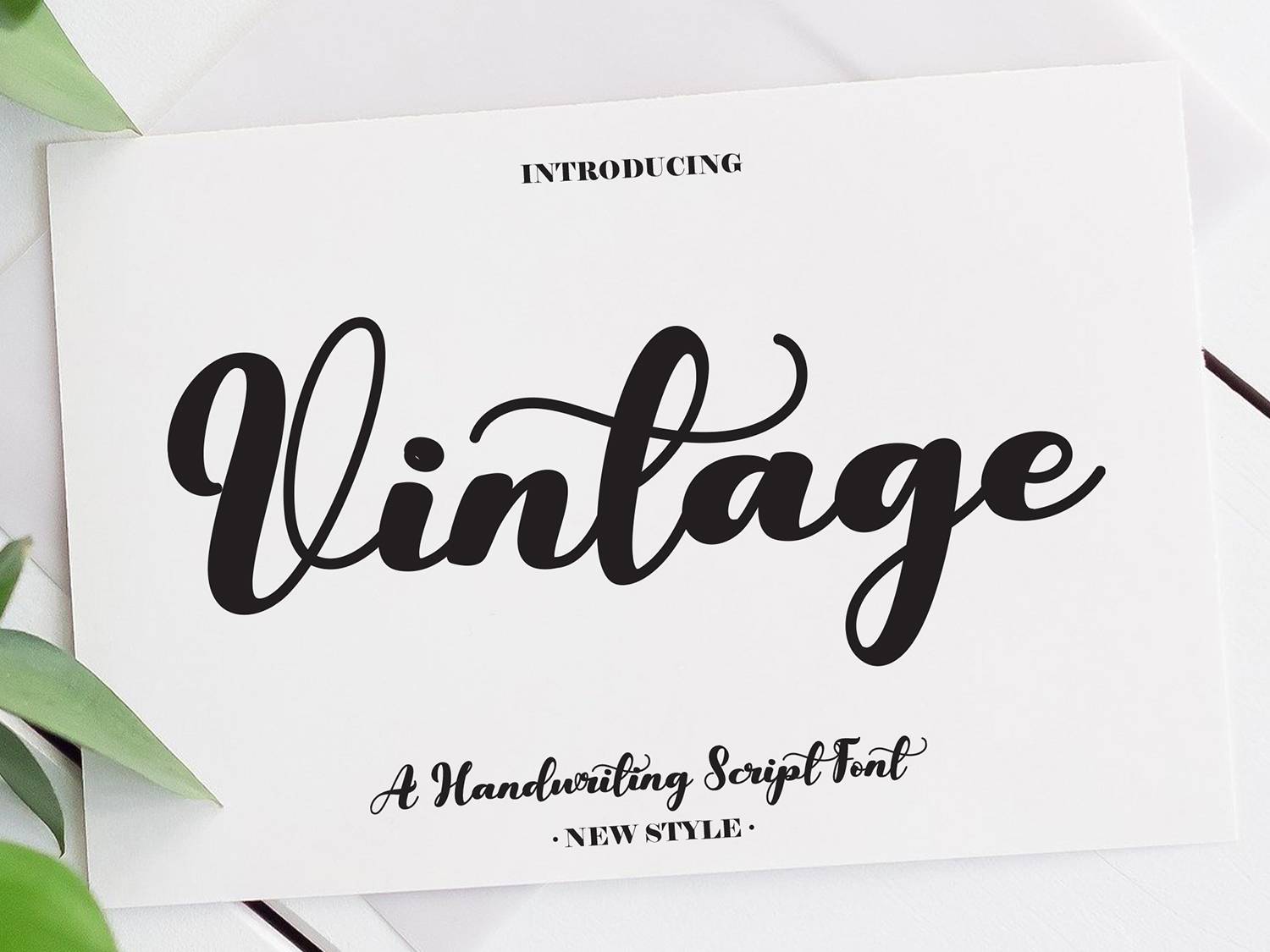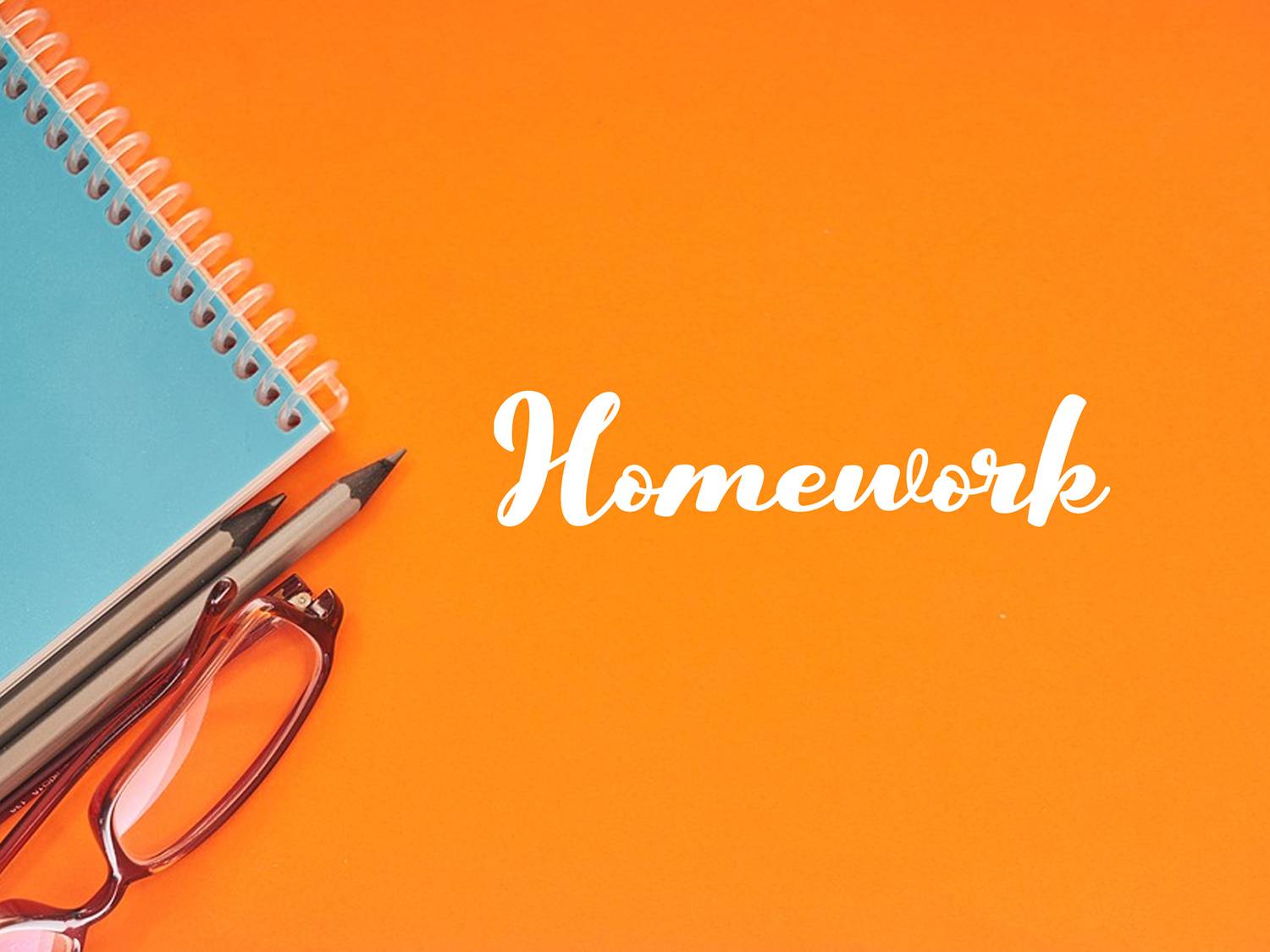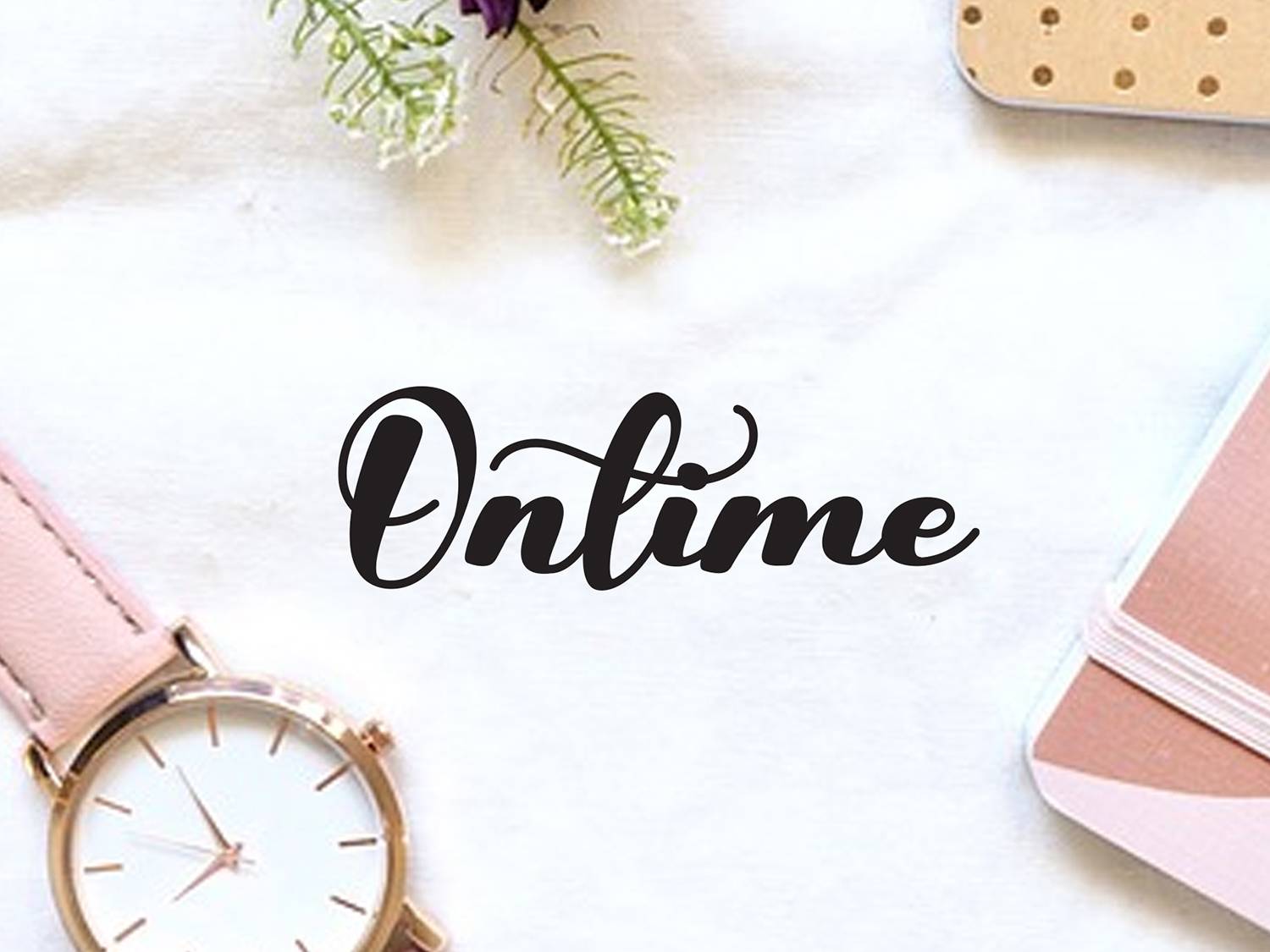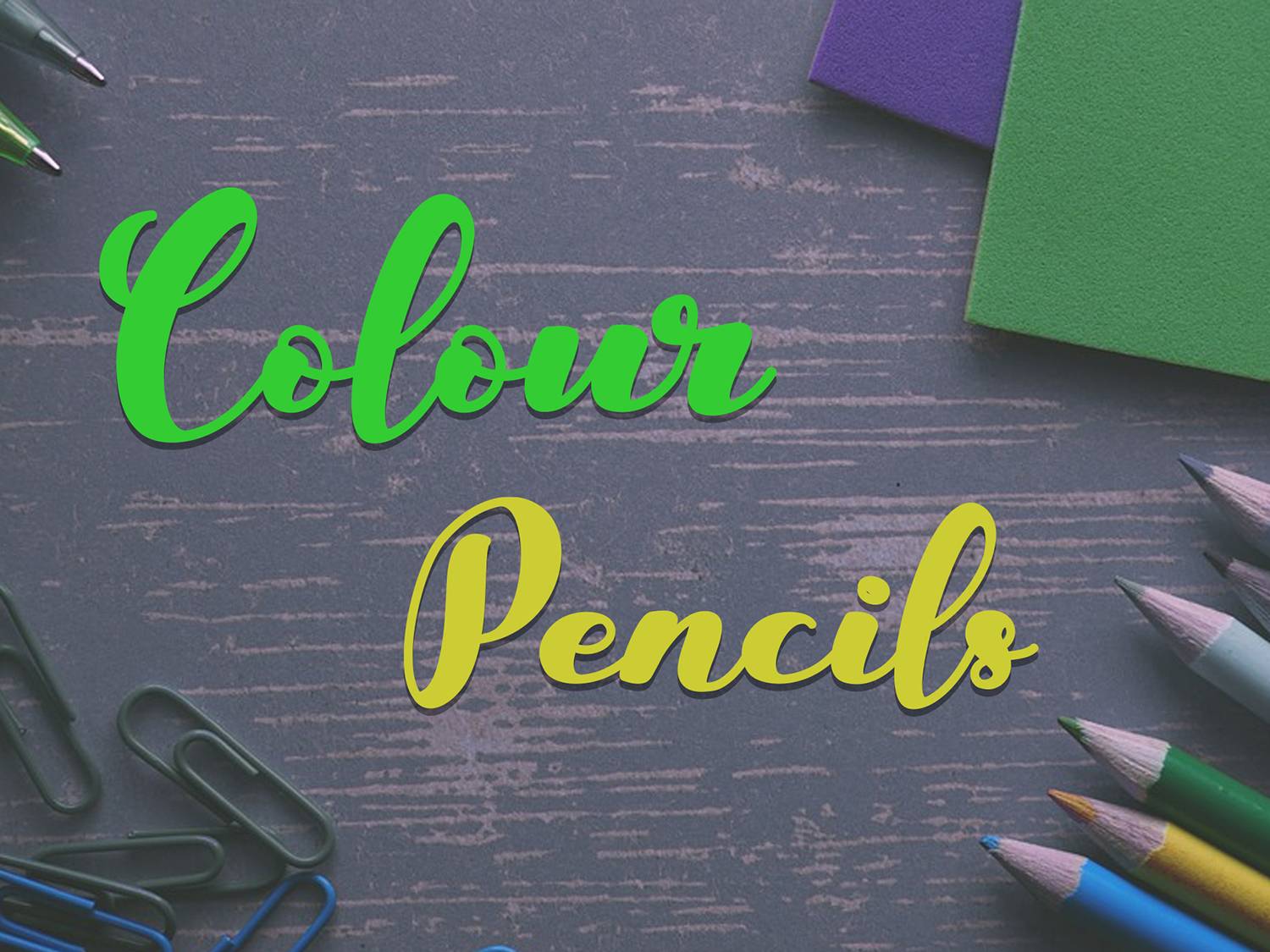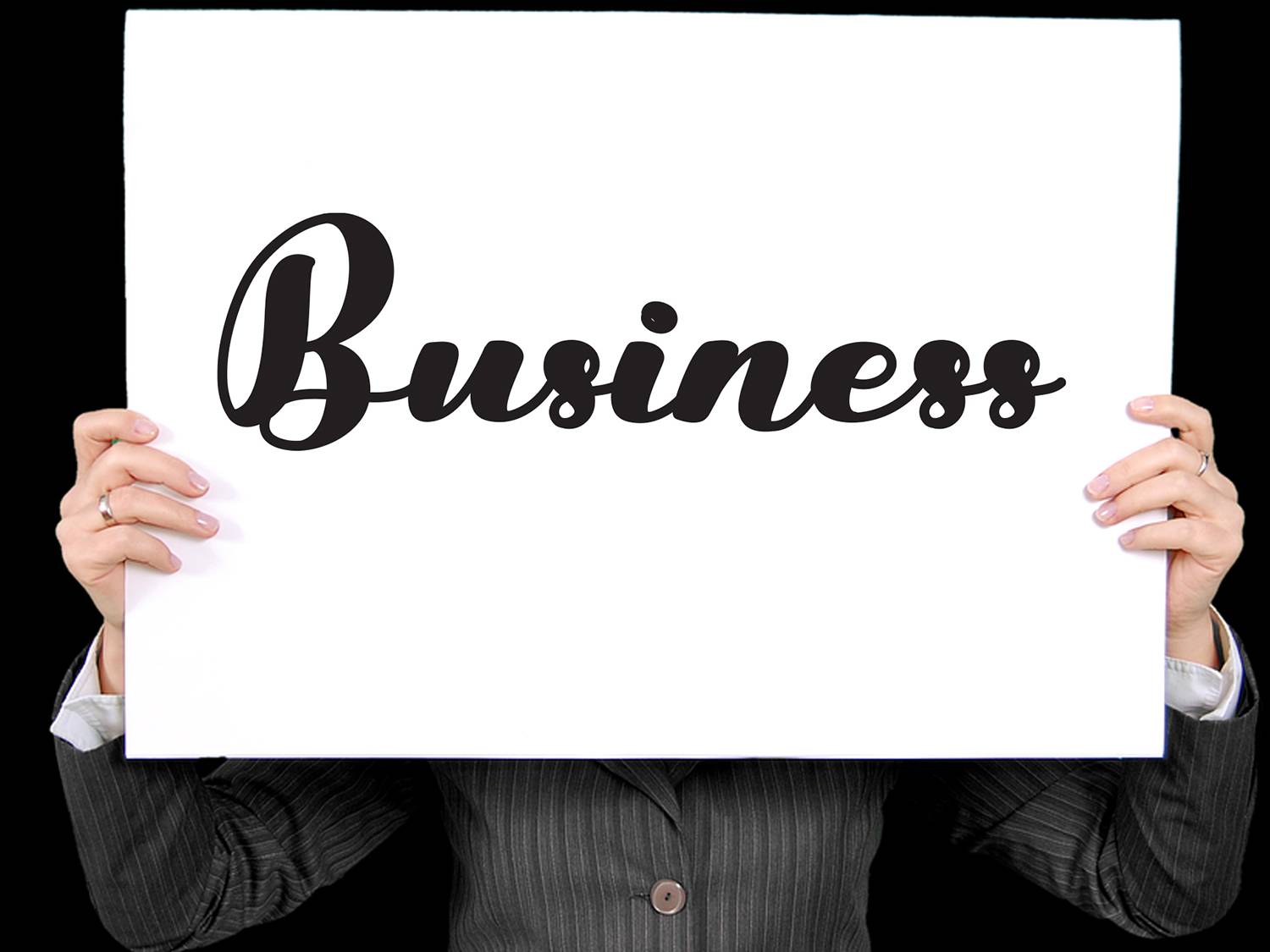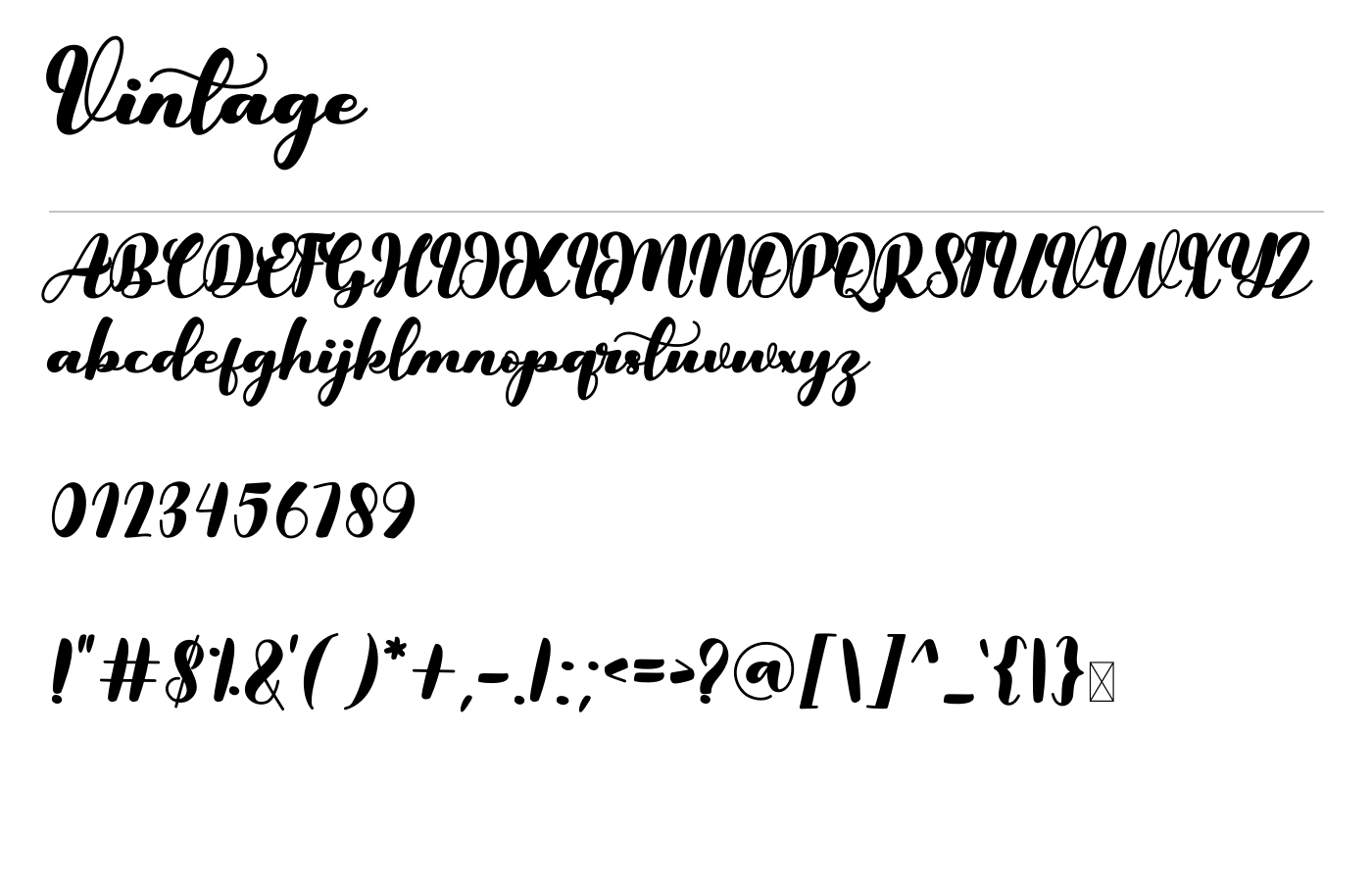
Vintage Font is a bold, script-style typeface with flowing, connected letterforms that evoke a classic, handcrafted feel. Its high contrast strokes and elegant swashes give it a sophisticated yet playful personality, making it perfect for branding, invitations, and headers that seek a nostalgic or stylish vintage touch. This font works well when you want to add charm and warmth to designs while maintaining readability and impact.
Vintage Font
About Vintage Font